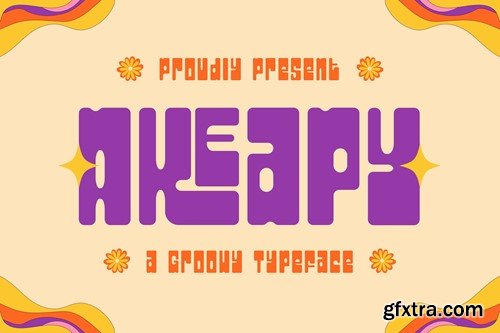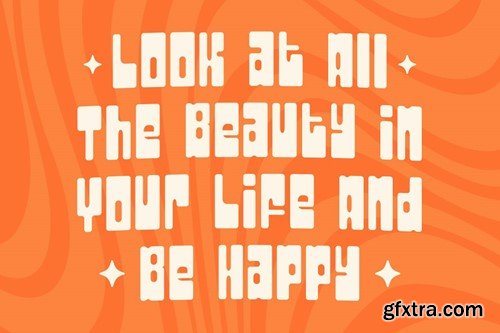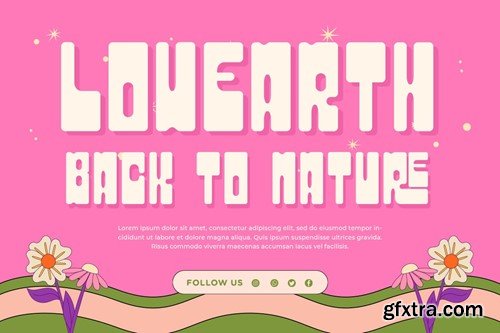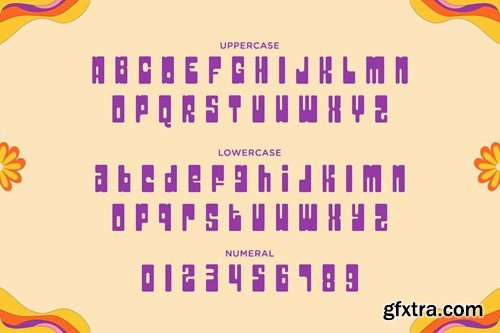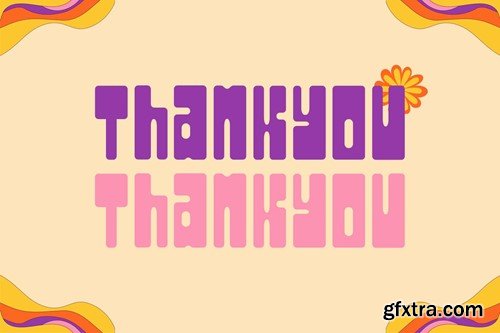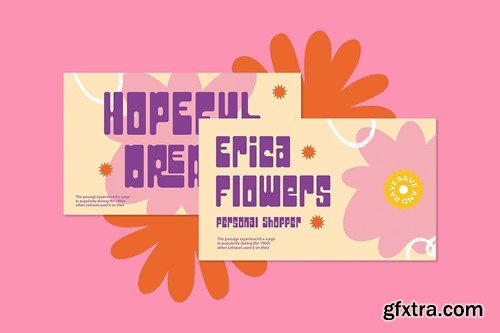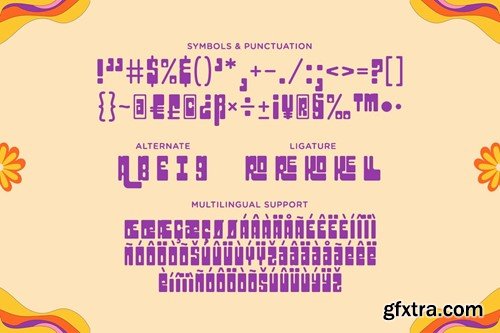
阿克佩亚 - 一种格罗voy字体 TSU3ECS
Groove to the beat of "Akeapy" - a groovy typeface that brings the retro vibes and creative energy to your designs! With its playful and distinctive letterforms, "Akeapy" captures the spirit of the 70s. Each character is meticulously designed to infuse your projects with a sense of funk and fun, making it perfect for retro branding, nostalgic posters, disco-inspired layouts, and more. Embrace the vintage groove of "Akeapy" as it effortlessly enhances your designs. Whether you're creating funky logos, disco-themed designs, colorful event invitations, or eye-catching social media content, this font will captivate your audience with its groovy and creative style. Step into a world of nostalgia and creativity with "Akeapy" and let your designs dance to the rhythm of the past! Features: – Uppercase – Lowercase – Symbols & Punctuation – Numeral – Ligature – Alternate – Multilingual Support File Included: – Akeapy ( OTF, TTF, WOFF )